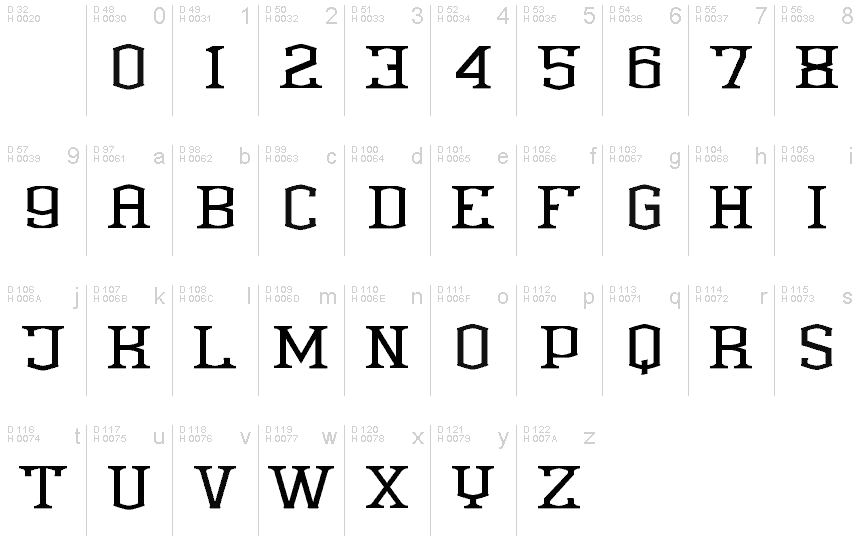
Anthony Demoversion
Anthony is a serif font inspired by the streetwear fashion culture. This amazingly refreshing serif font works well in apparel, and can add a ton of style to your print and digital works.